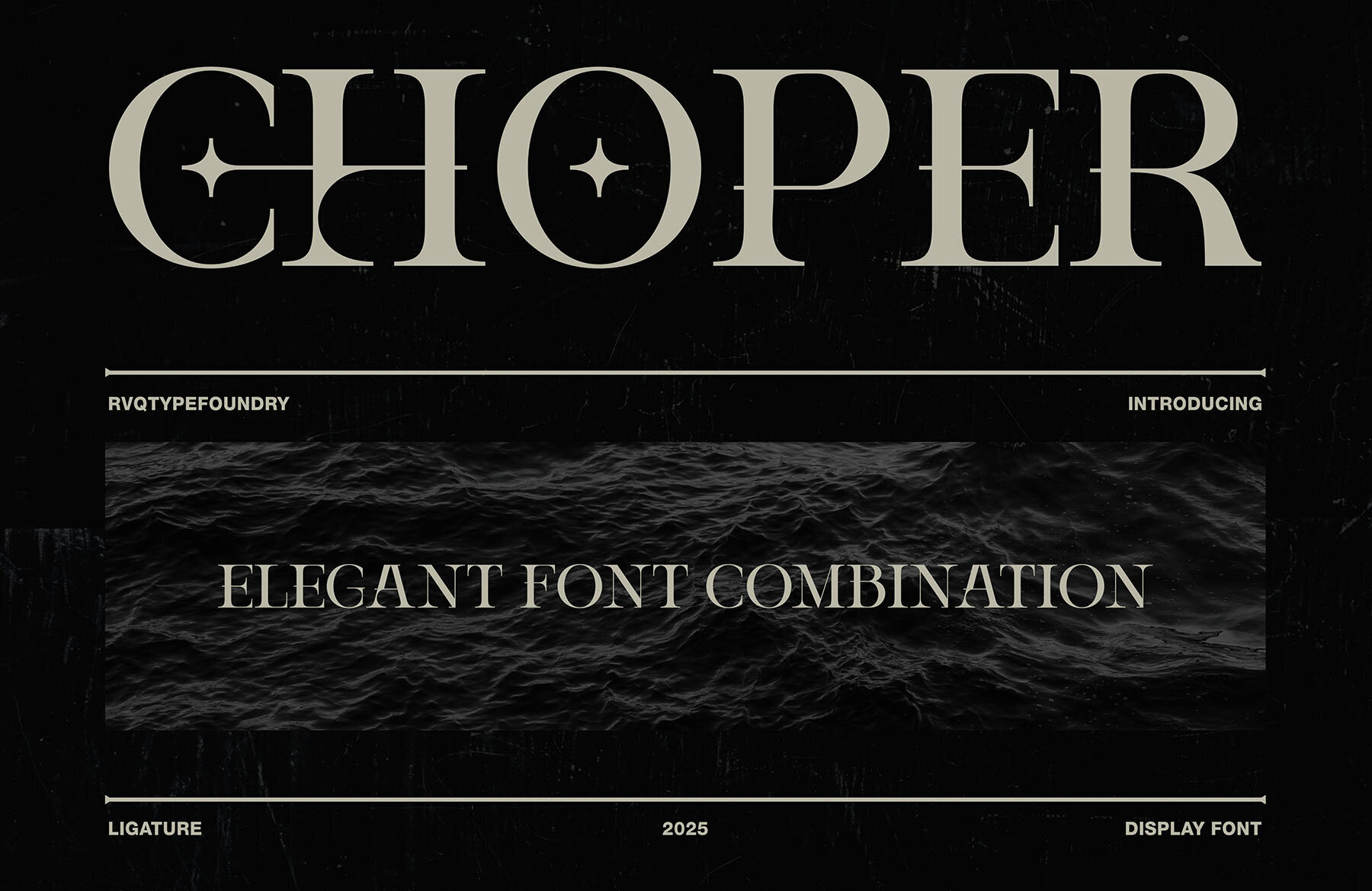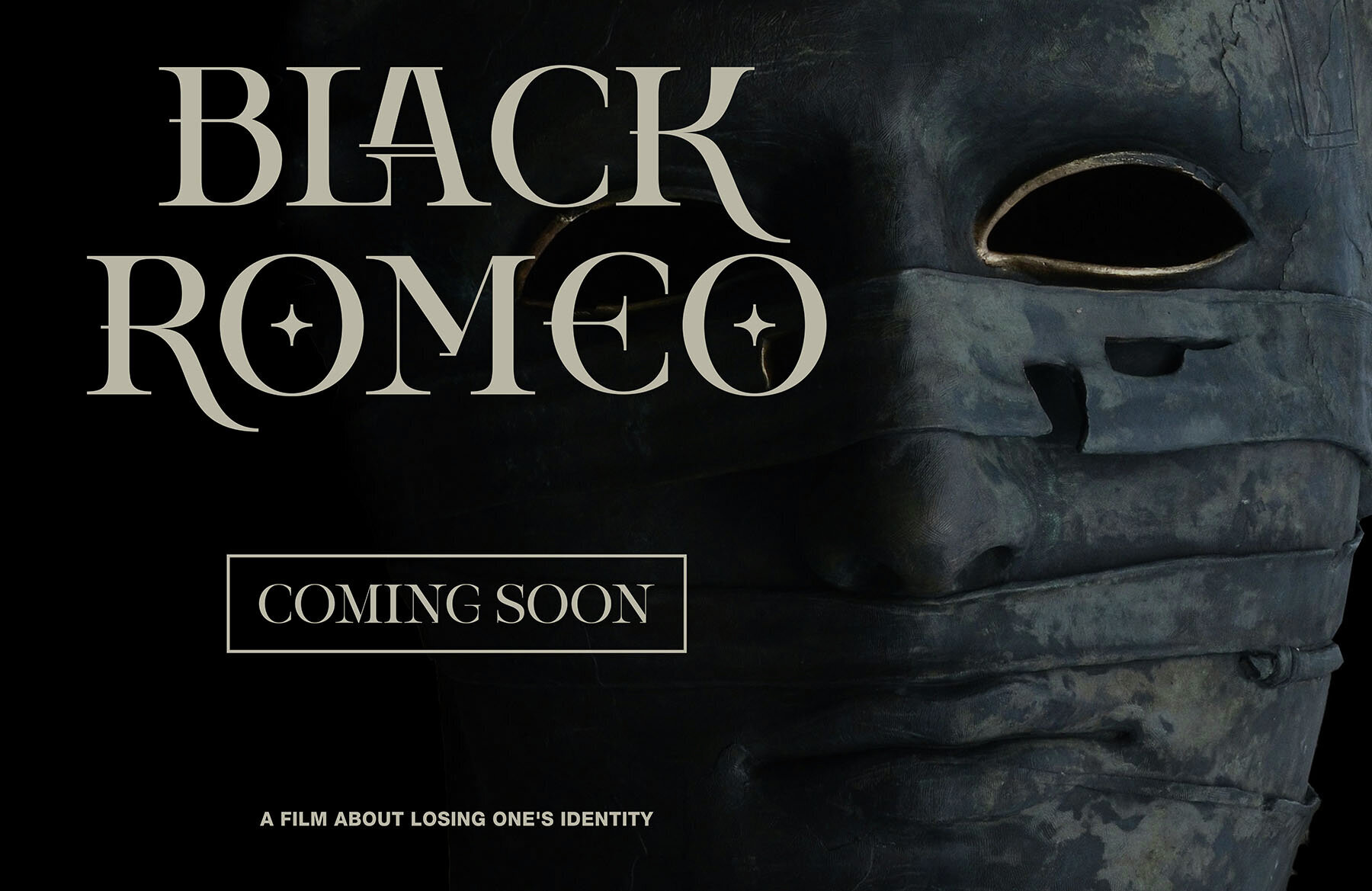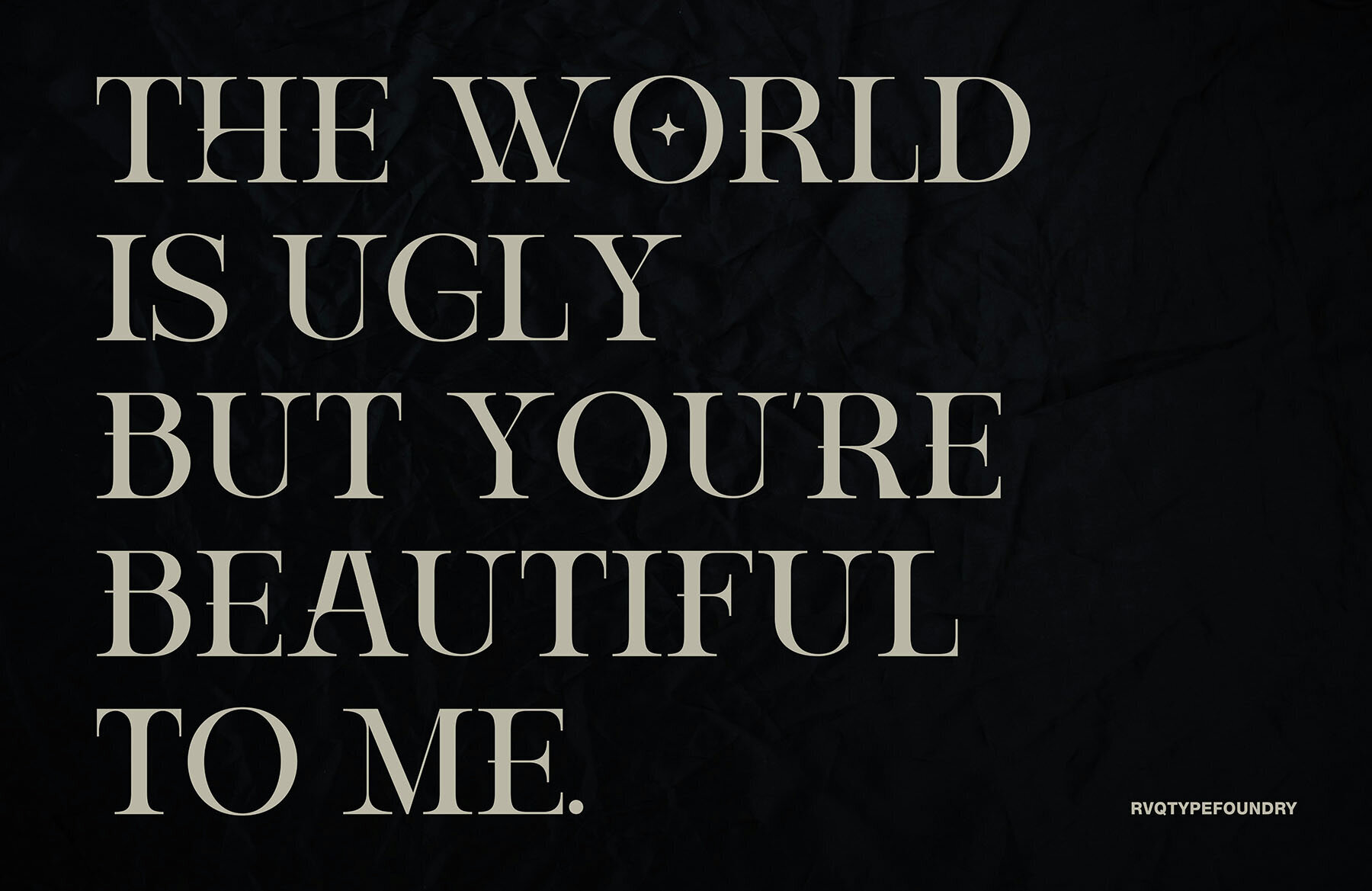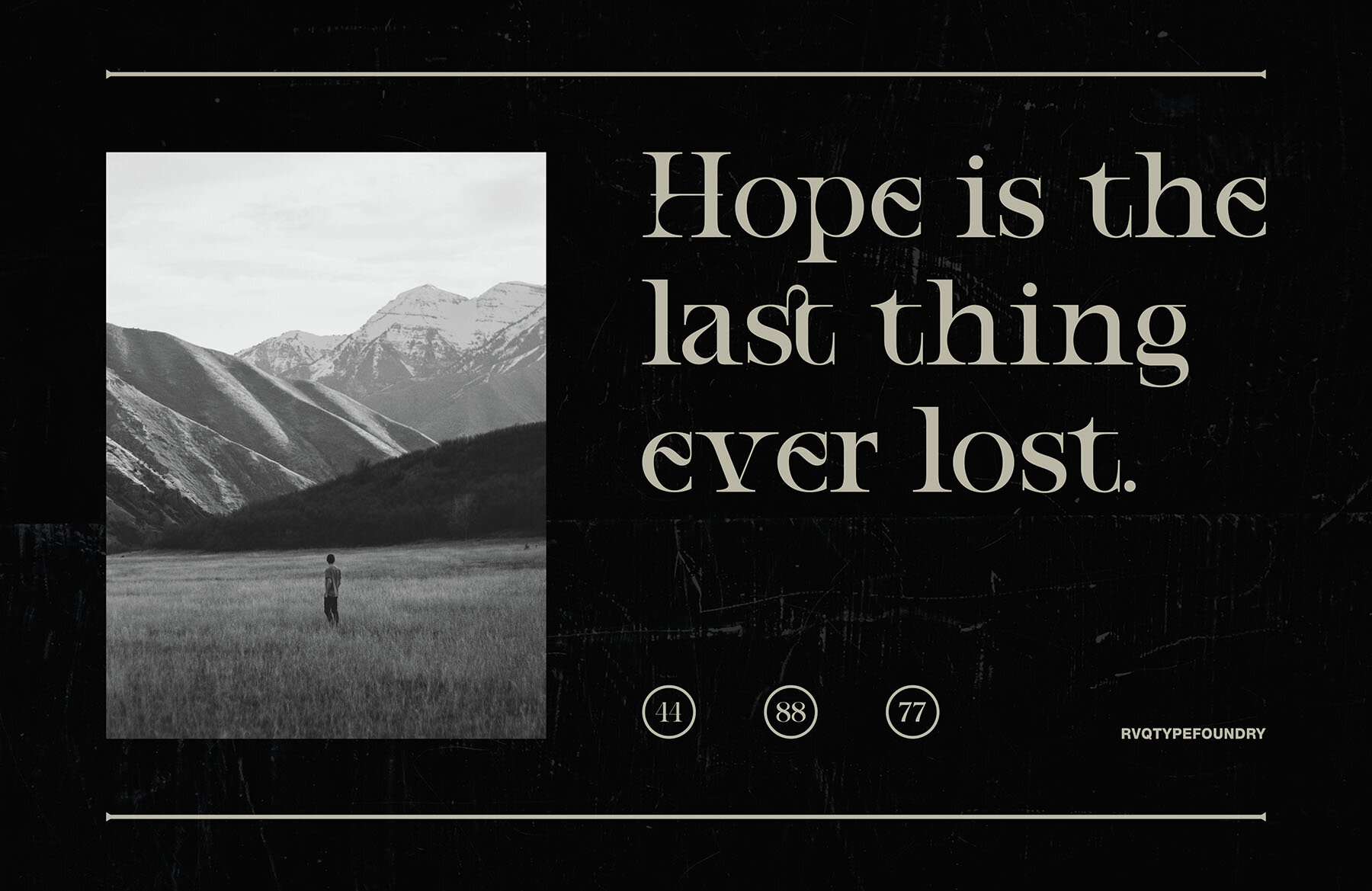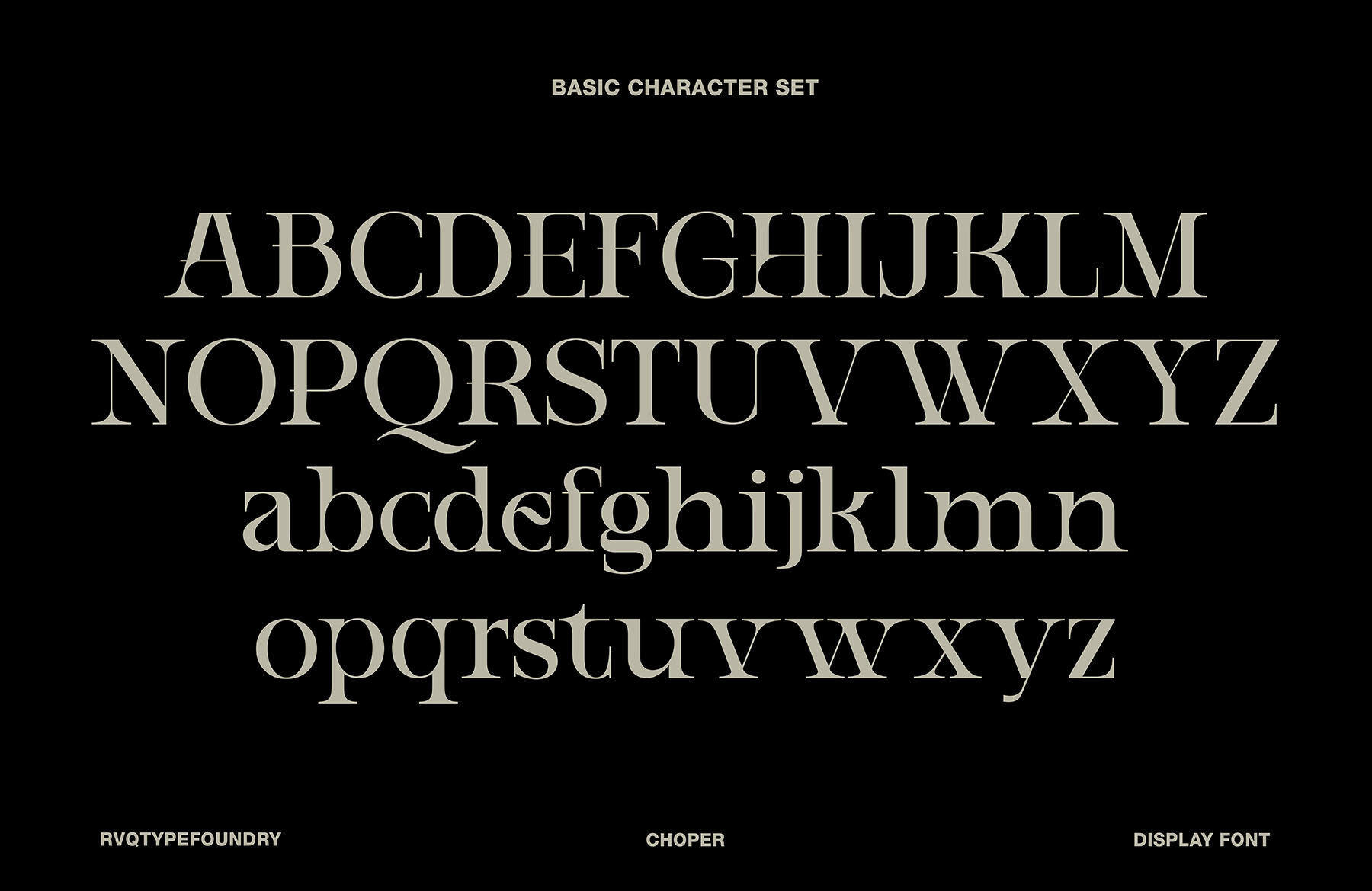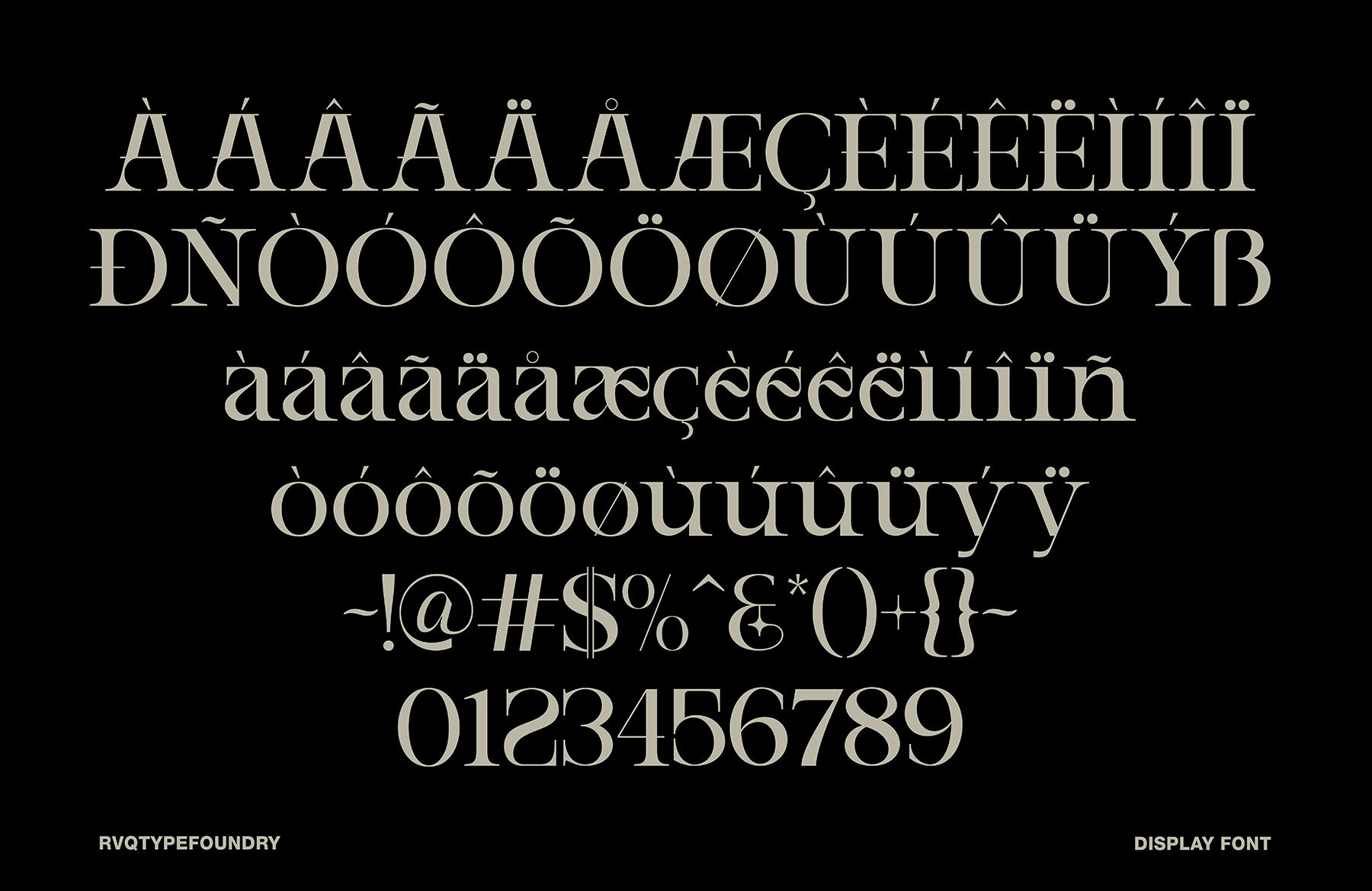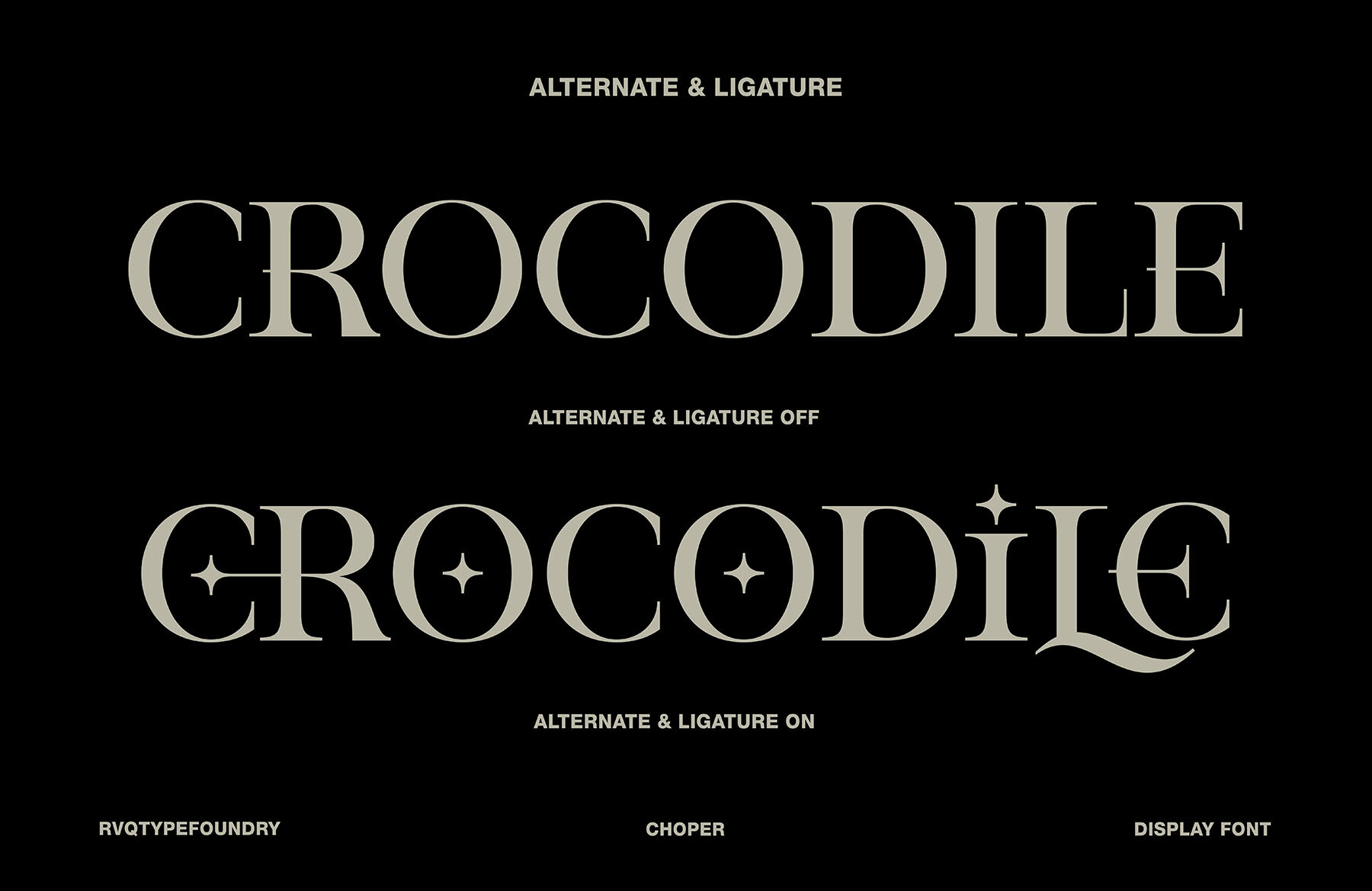
Choper Display Font
CHOPER DISPLAY Regular
Choper Display, crafted by Rvq Type Foundry, is a versatile font designed to serve dual purposes with its unique alternative glyphs. Featuring a full set of both capital and lowercase letters, it supports multiple languages and includes currency figures, numerals, punctuation, and additional glyphs. This makes it an ideal choice for a variety of applications such as branding, logos, greeting cards, stationery, invitations, T-shirts, packaging designs, posters, and typographic art.
Choper Display’s standout features include a comprehensive character set from A-Z, numerals, punctuation, multilingual accents, stylistic alternates, and ligatures. With its dynamic design and extensive character support, Choper Display provides creative flexibility for graphic and digital designers seeking to enhance their projects with a unique and modern typeface.